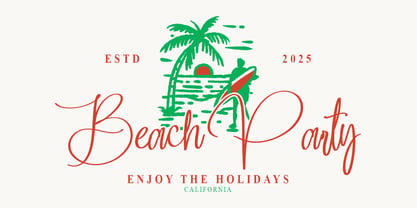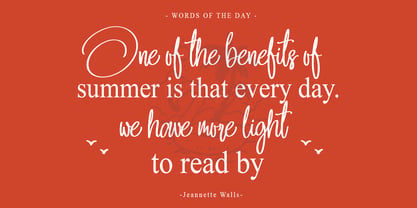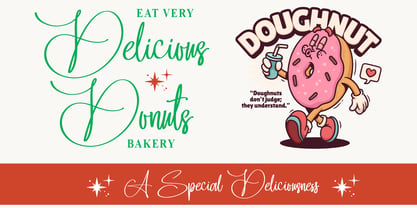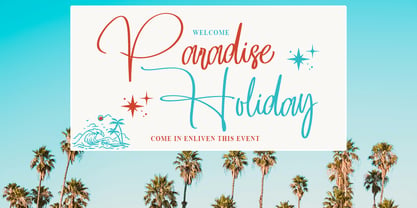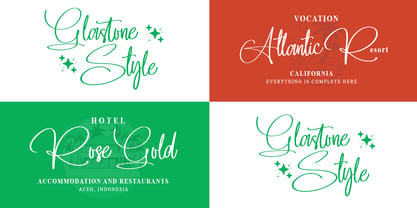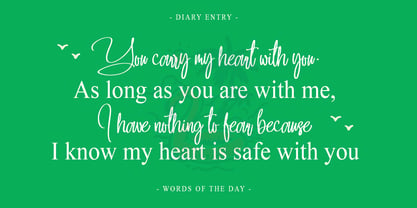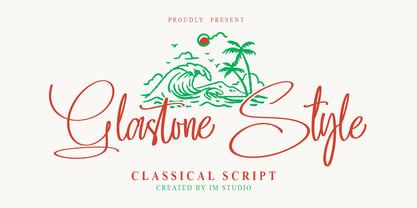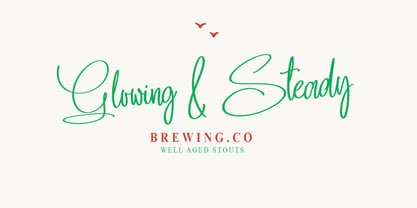
Glastone Style
by IM Studio
The Glastone Style Font Family was designed by Ikhsan Maulana and published by IM Studio. Glastone Style contains 1 styles. More about this family
Introducing Glastone Style, a meticulously constructed handwritten font that blends artistry and intricacy for a striking visual impact. This font serves as a canvas for your creativity, lending vitality to alphabets, bringing an elegant touch to invitations, infusing charm into food packaging, reinventing titles and so much more. Leave your unique imprint with Glastone Style!
Designers: Ikhsan Maulana
Foundry: IM Studio